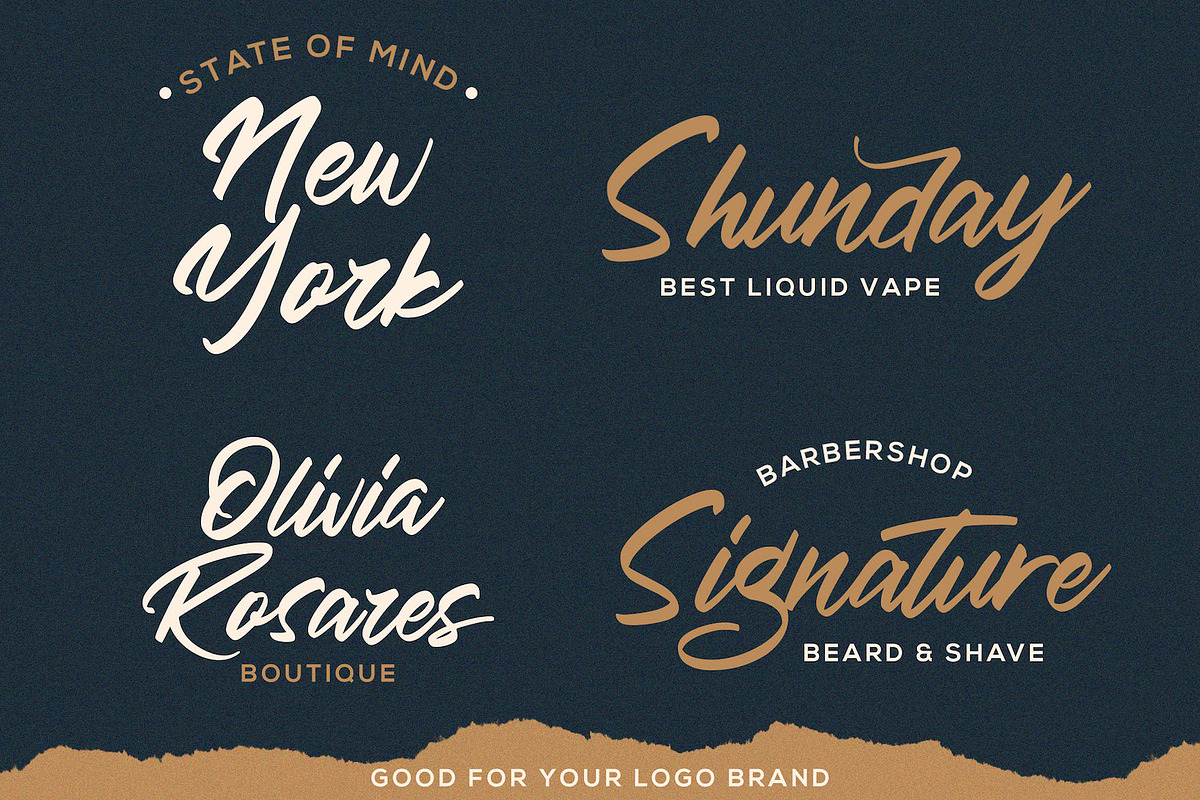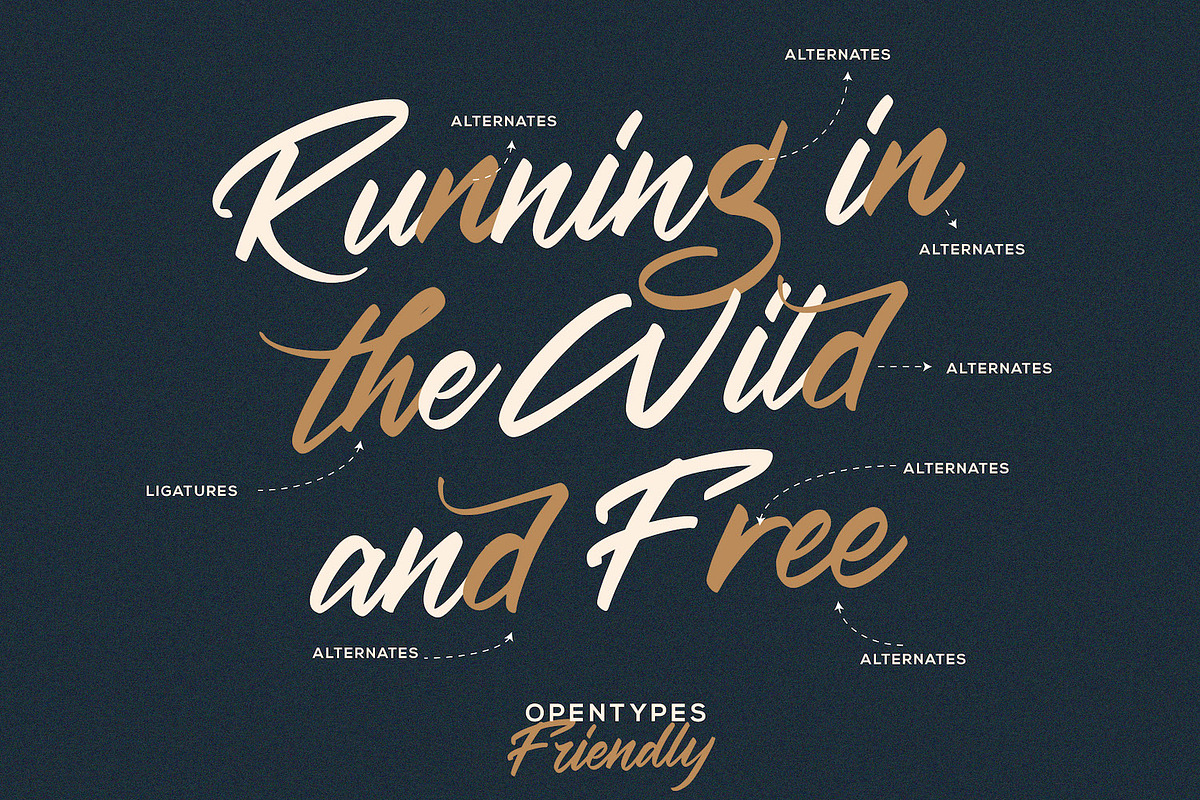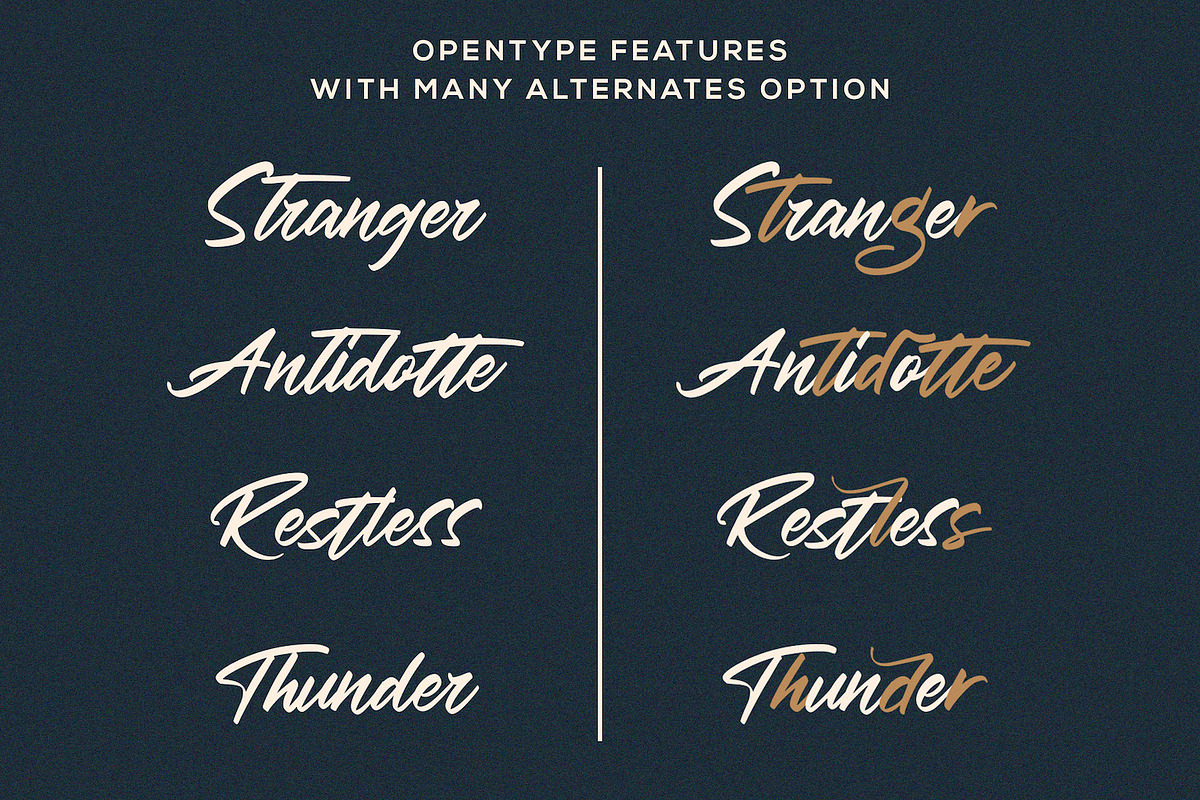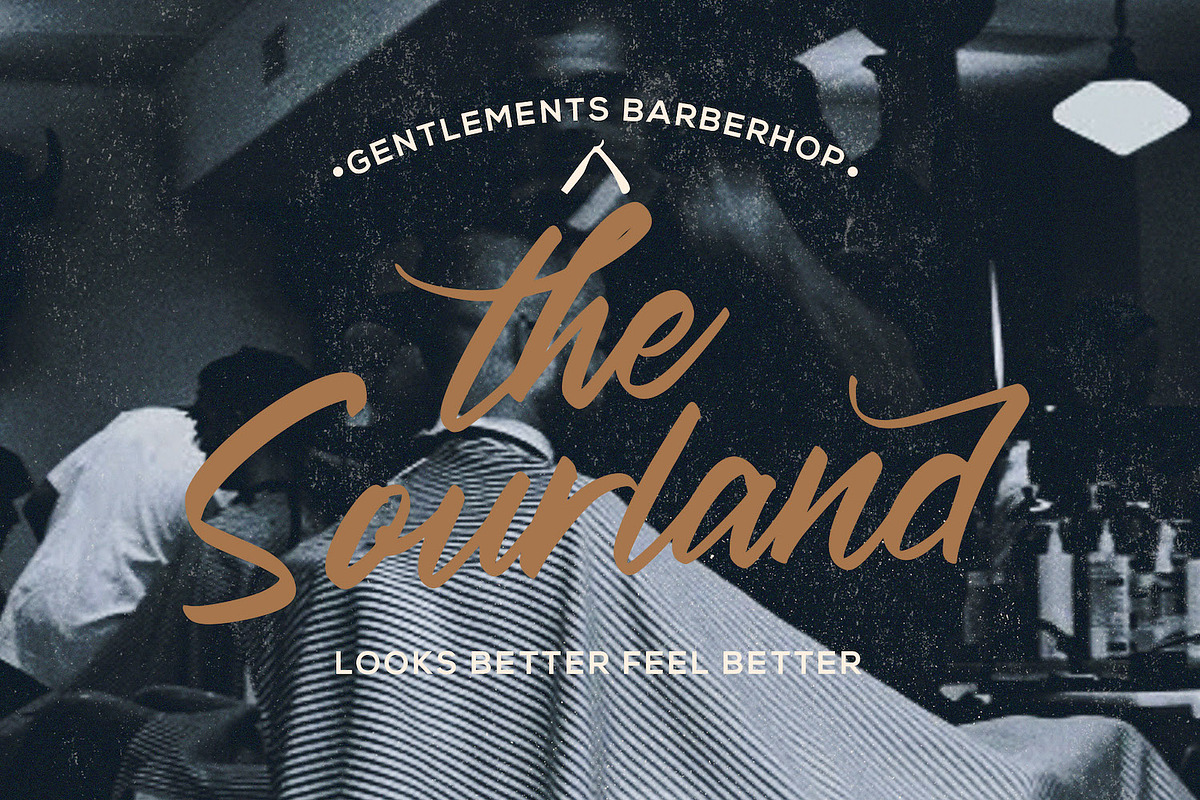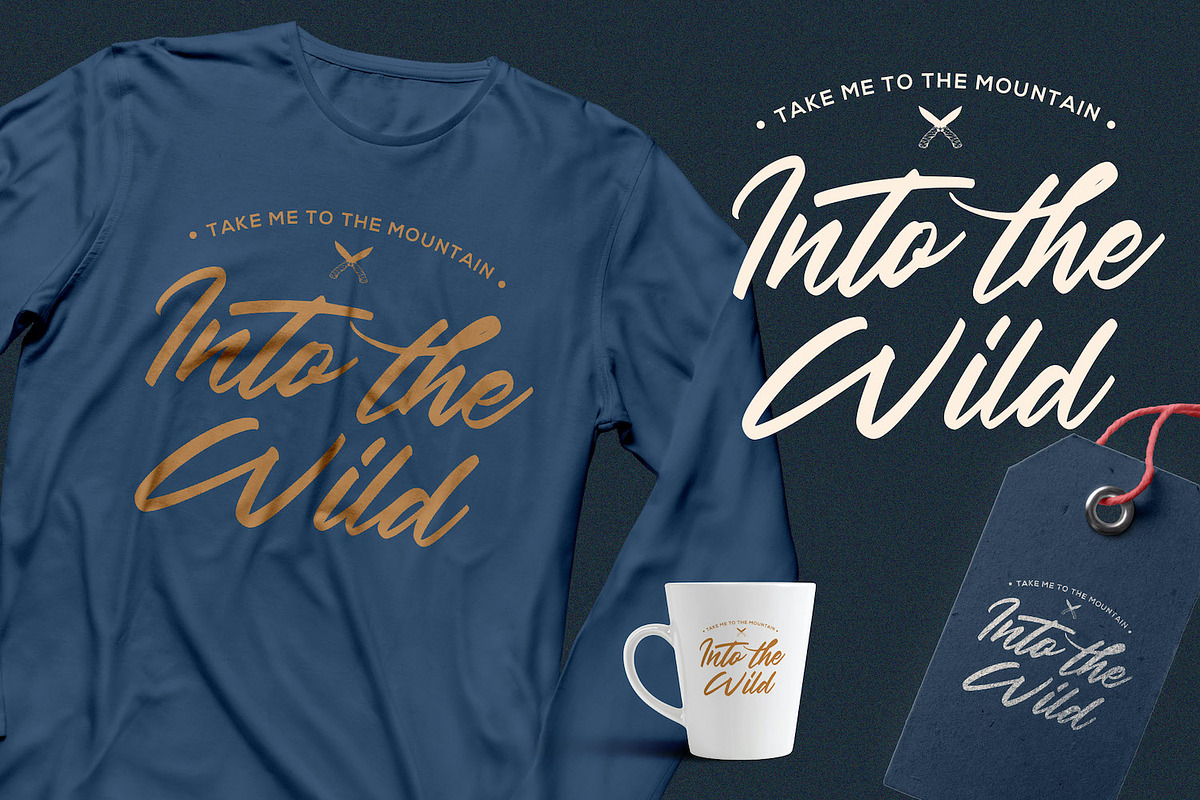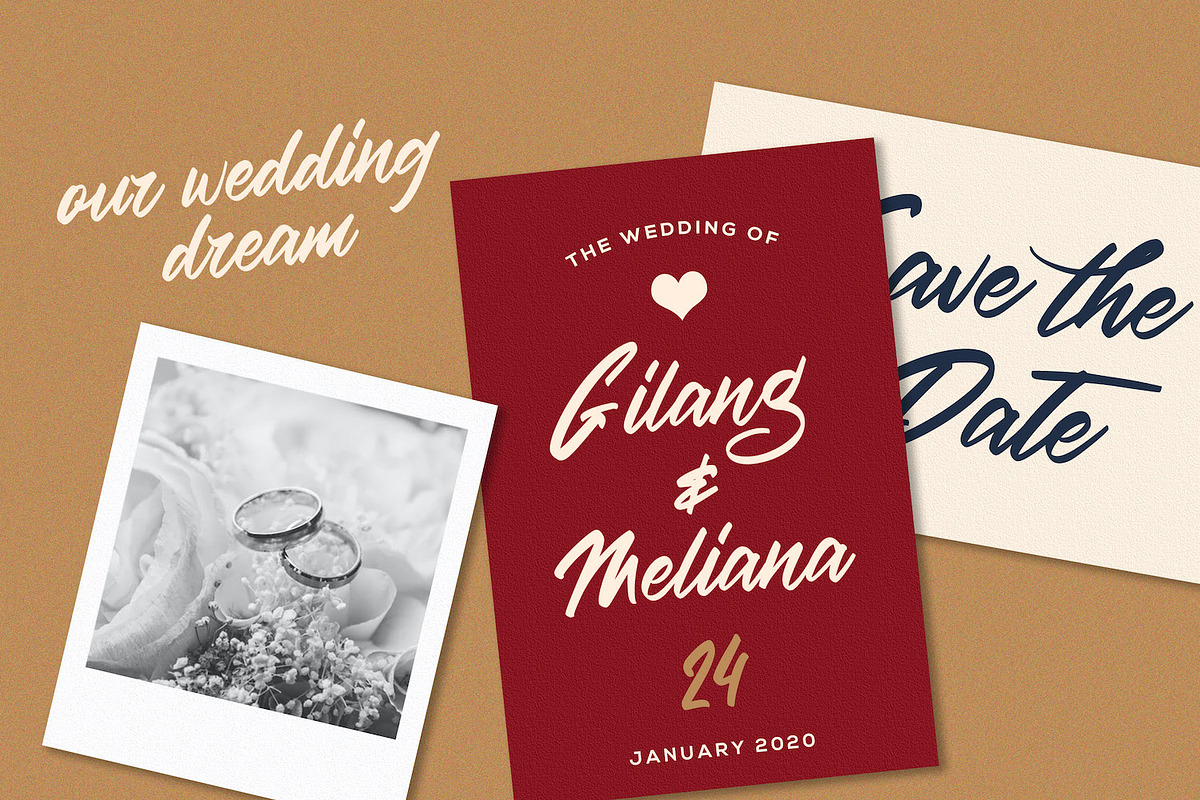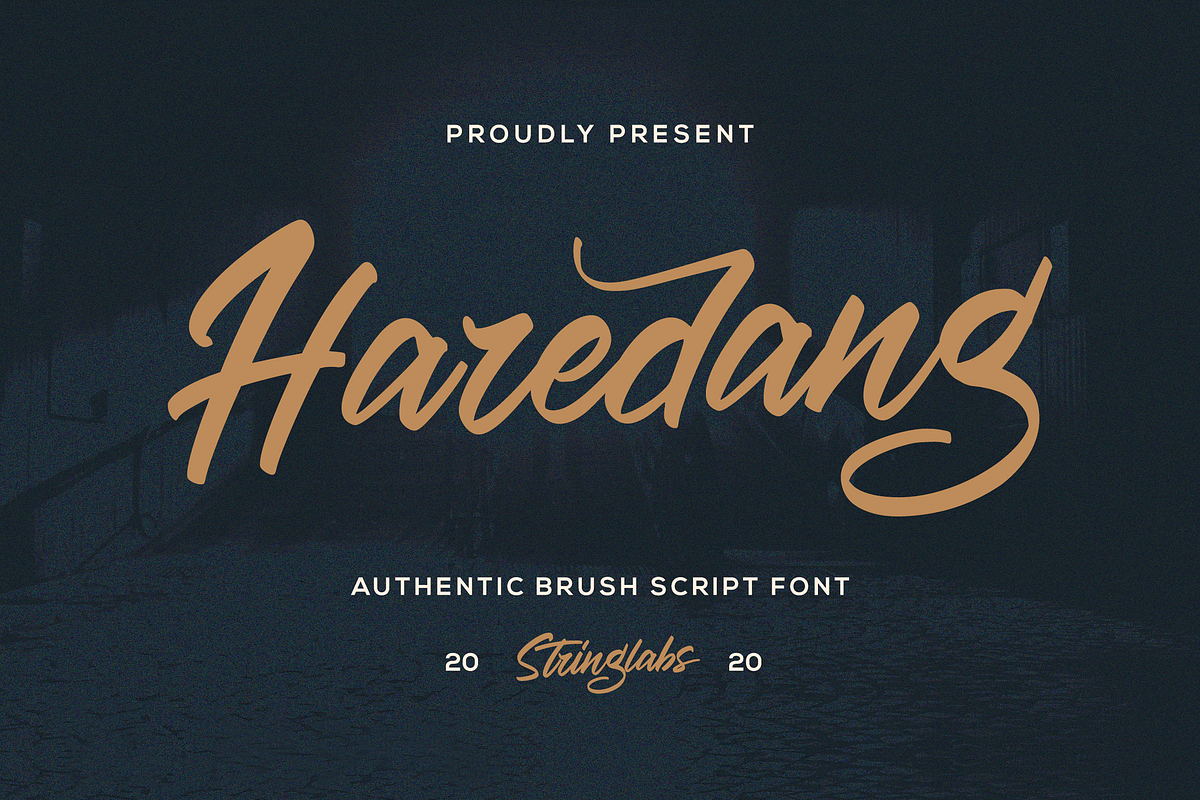
Haredang - Bold Script Font
Introducing Haredang - Bold Script Font
Haredang is inspired by classic typography and brings its own unique style to any design project. This amazing handwritten font is perfect for bold script font lovers, and it’s also perfect for brands such as: barbershop, motorcycle club, clothing, logo brand, coffee shop, shoe brands, and much more.
Why Haredang - Bold Script Font is worth a look
Haredang - Bold Script Font by StringLabs fits naturally into Branding, posters, packaging, typography.